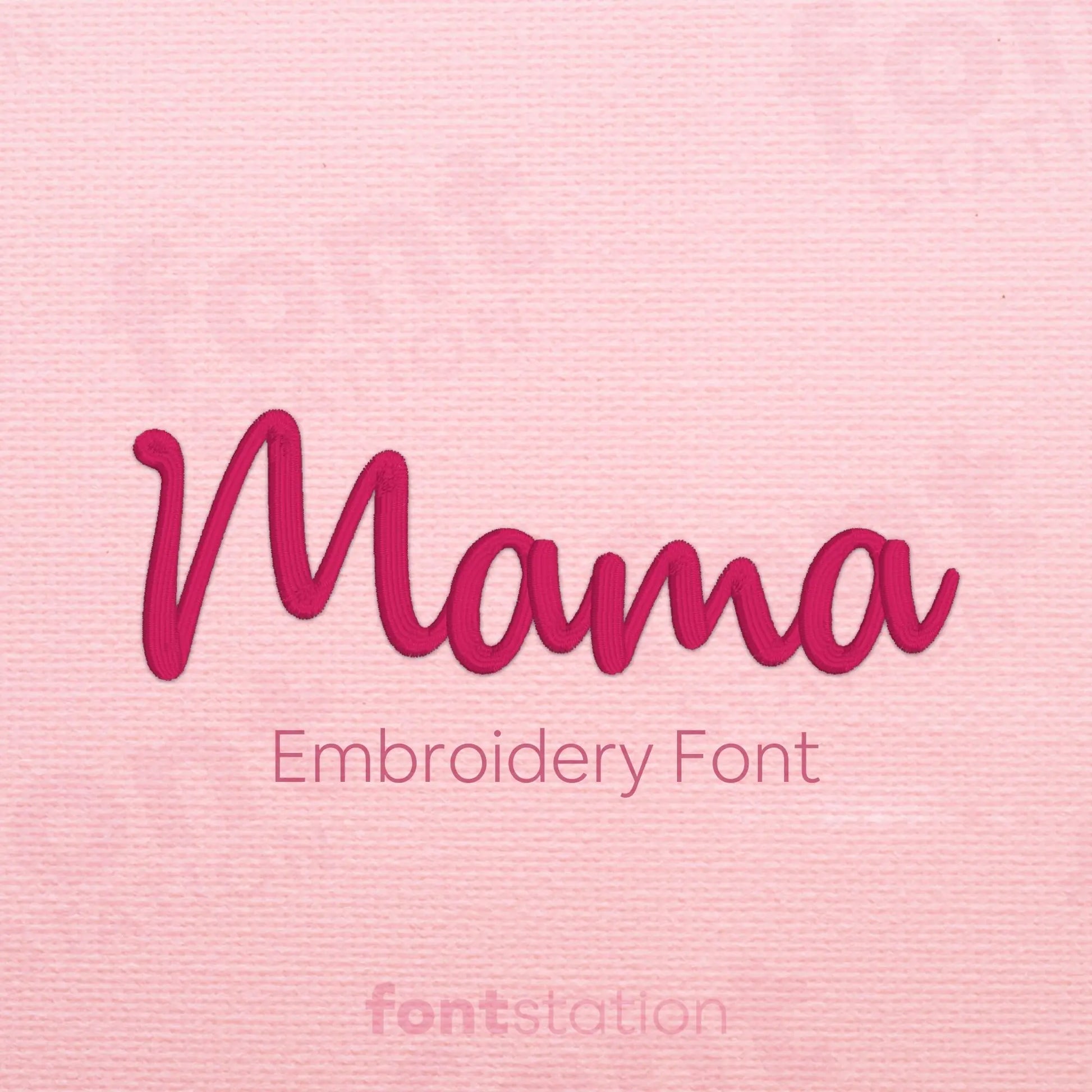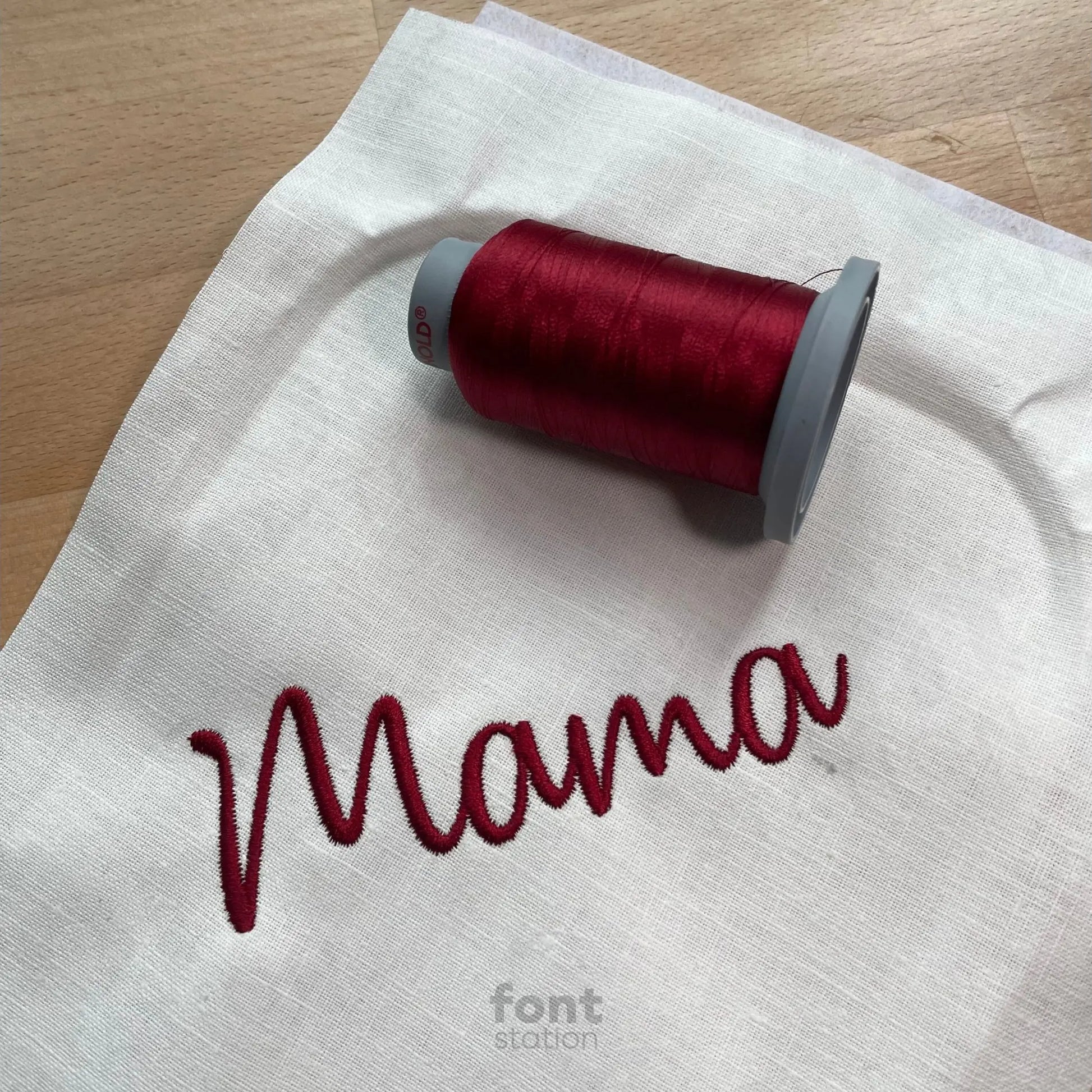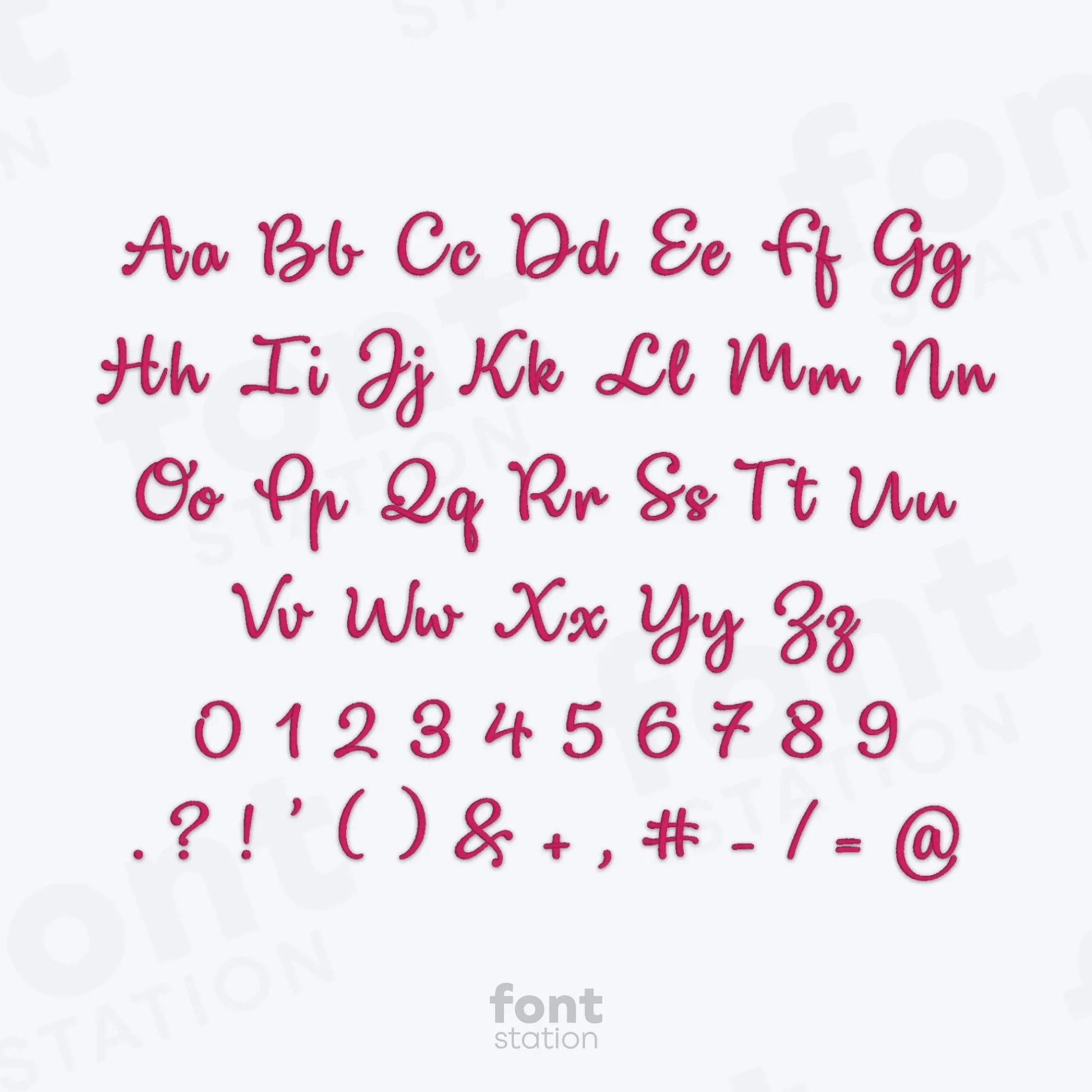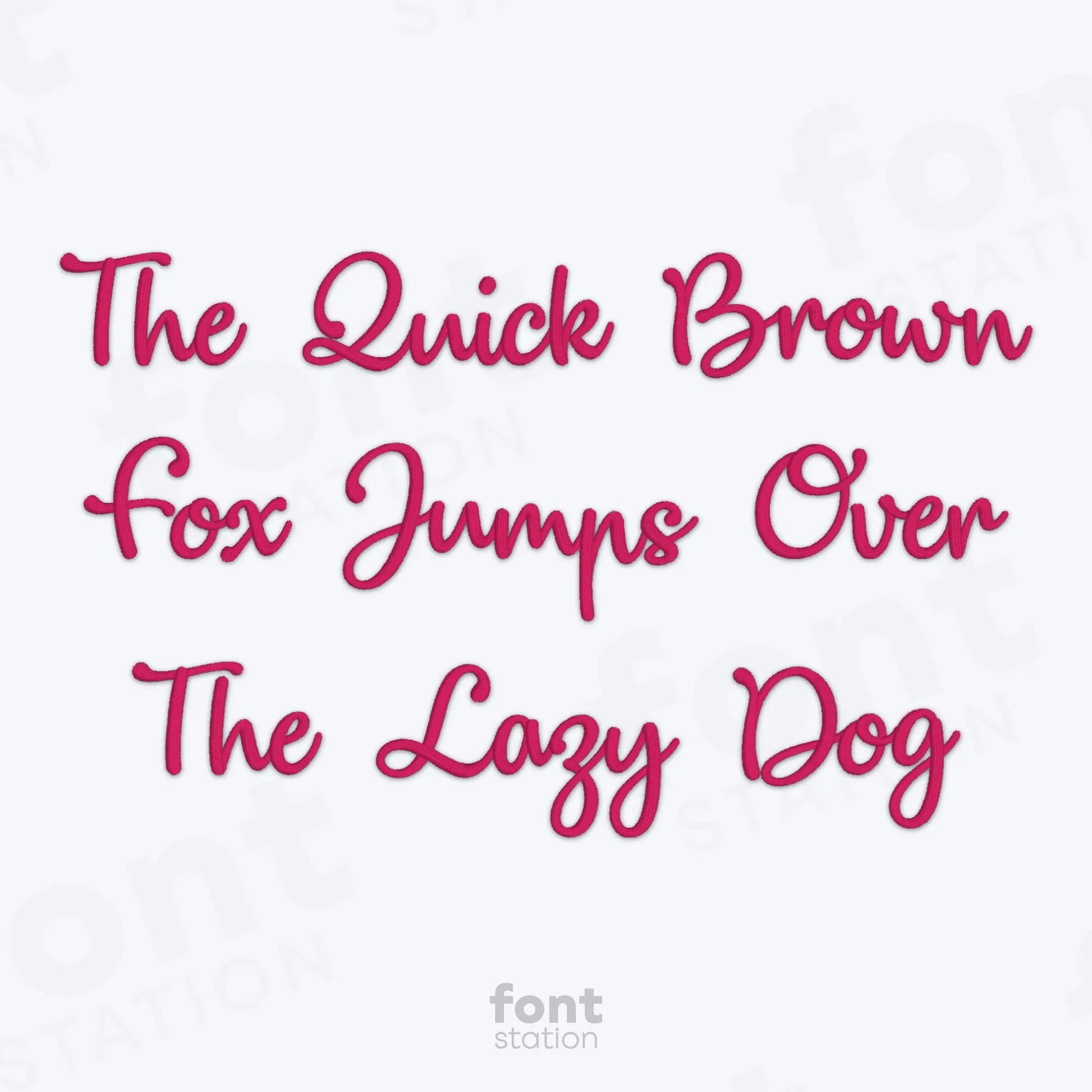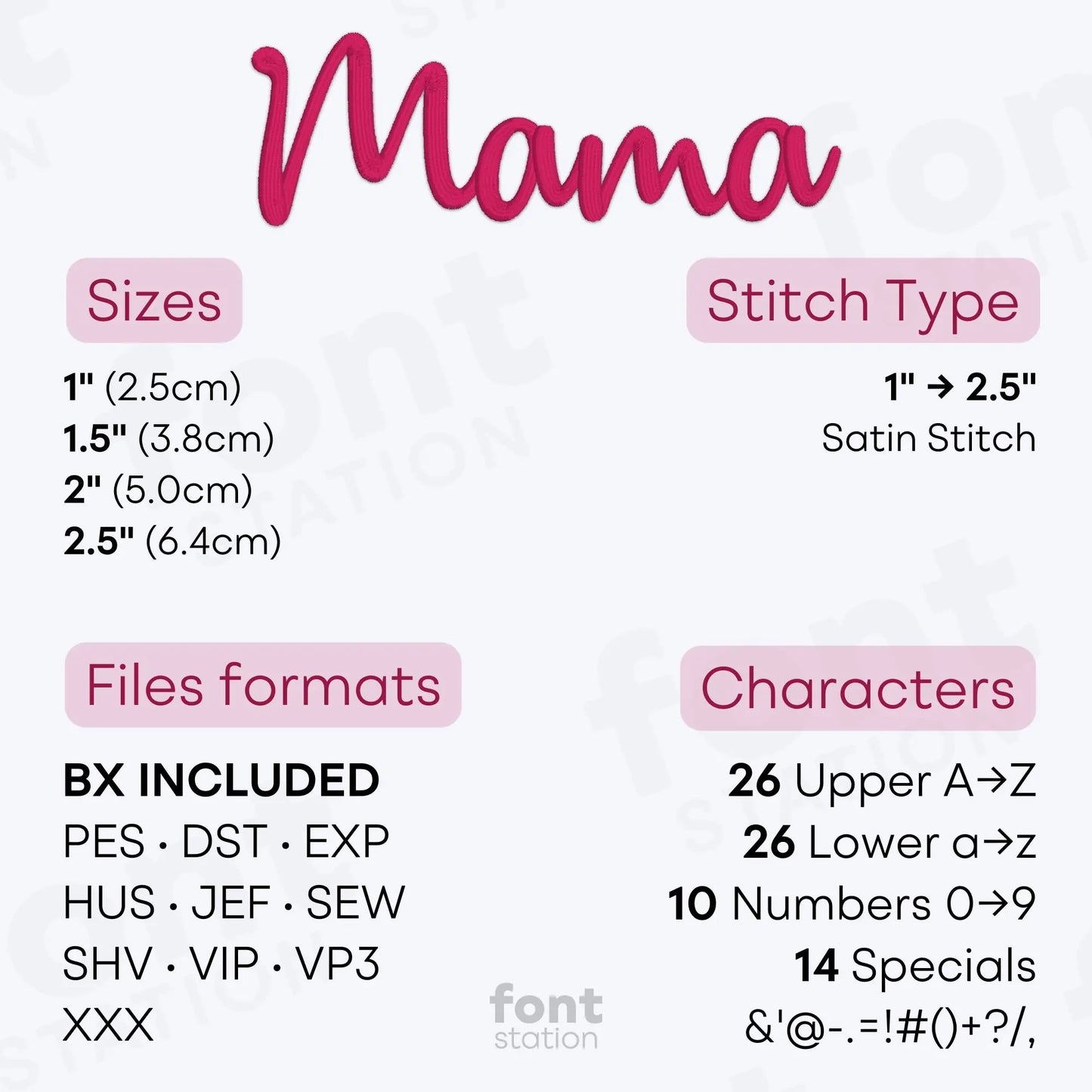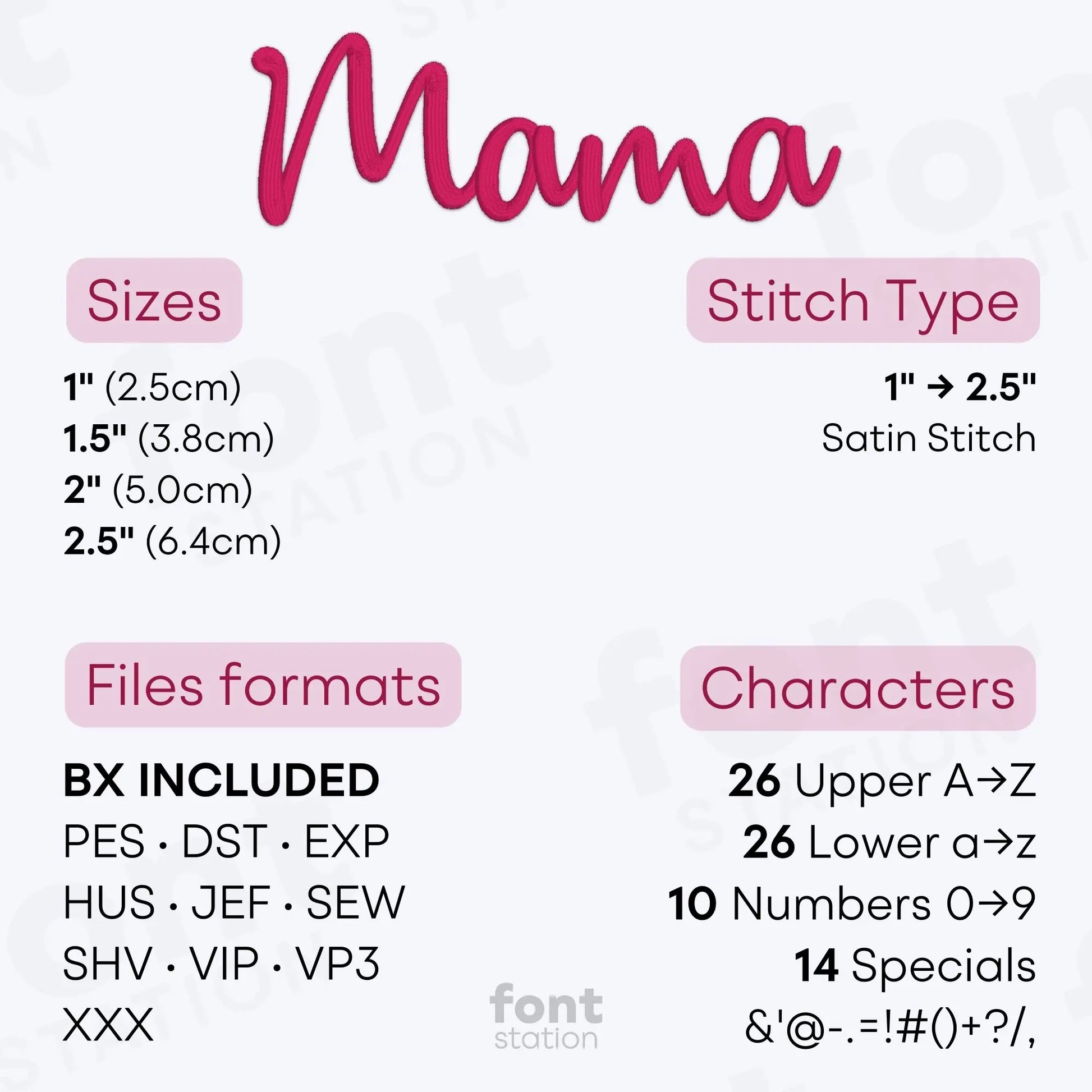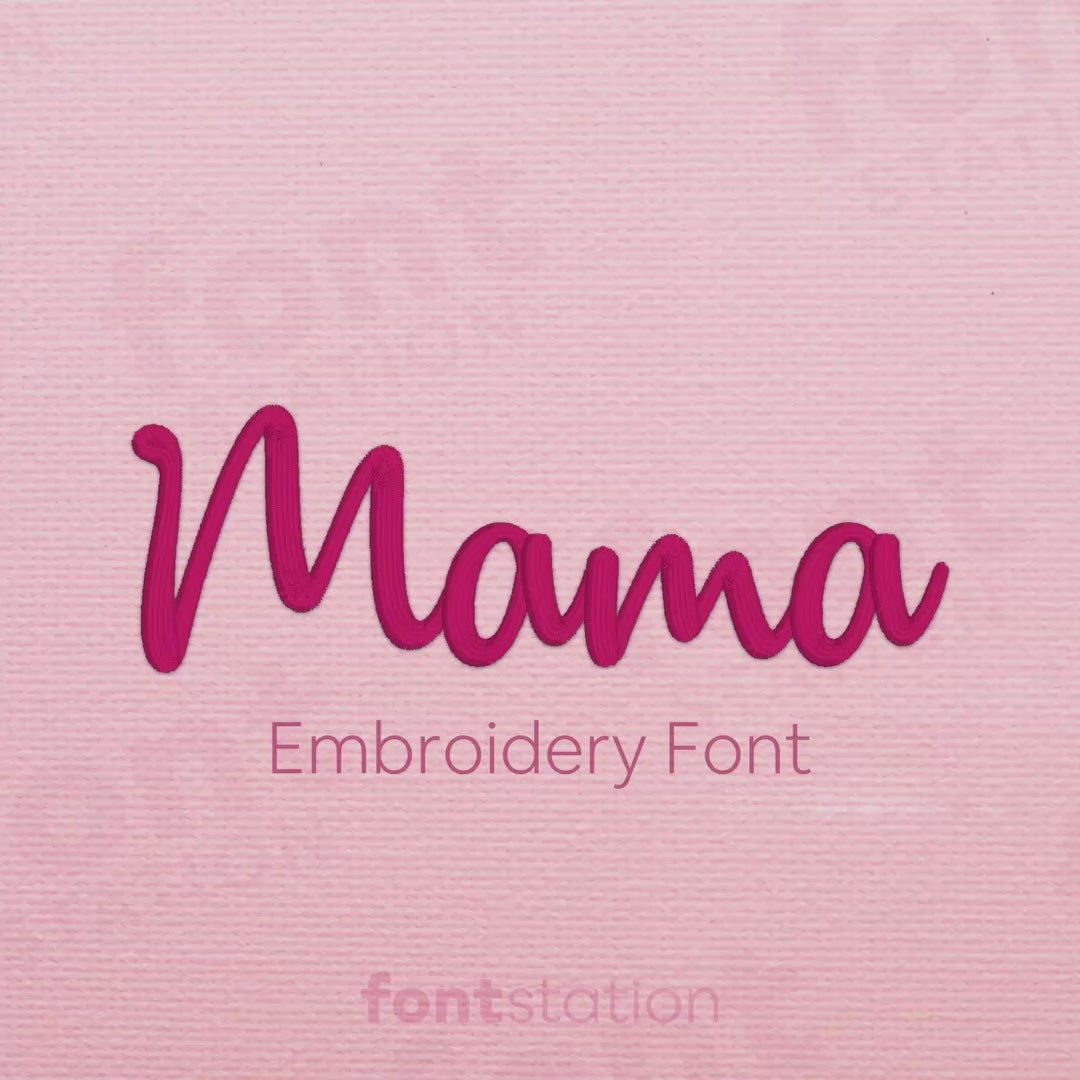
Mama Embroidery Font
Introducing our Mama embroidery font, a sweet handwritten alphabet perfect to stitch heartfelt letters for your next Mother's Day or mom-themed project. These soft, modern designs work seamlessly with your embroidery machine and bring love to every stitch.
About the Mama Embroidery Font
Characters: 26 uppercase, 26 lowercase, 10 numbers, and symbols & ' @ - . = ! # ( ) + ? / ,
Our Mama embroidery font adds a heartfelt, handwritten touch to your embroidery projects.
The Mama embroidery font features a sweet and modern handwritten alphabet that’s perfect for Mother’s Day gifts, mom-themed apparel, and custom keepsakes. These embroidery letters stitch beautifully on everything from shirts and bags to baby blankets and towels. Digitized for smooth results, this embroidery font is available in popular formats including BX, PES, DST, JEF, EXP, VP3, HUS, and more—fully compatible with your embroidery machine. Add love and personality to every design with this soft, stylish font.